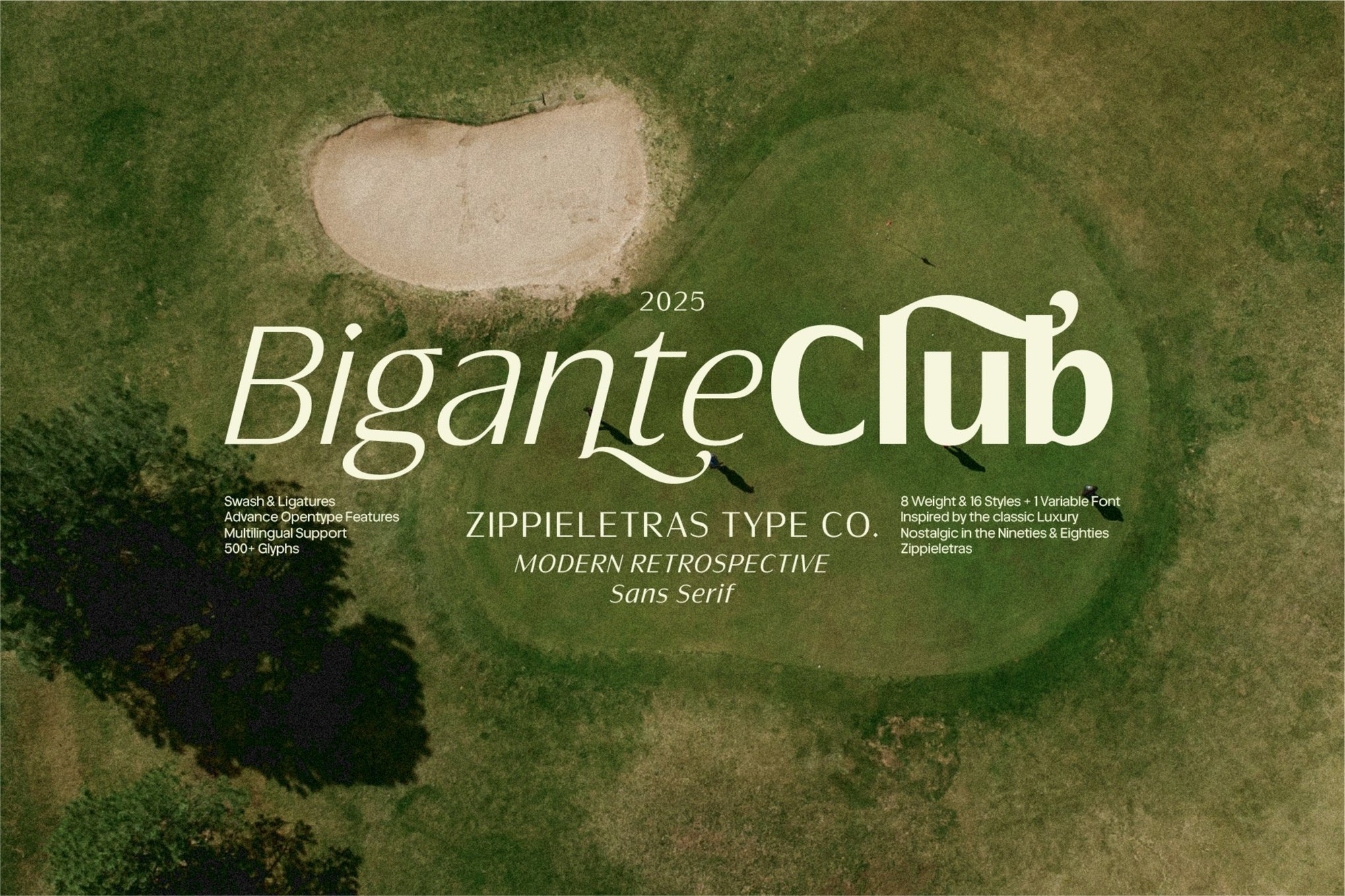
Bigante Font Family
Bigante Font Family is a versatile font designed to adapt beautifully across different design styles, offering dependable readability and balance.Zippieletras proudly Introduce Bigante! A luxury modern sans serif designed for elegant branding, editorial systems, and refined display typography. Inspired by the sophisticated nostalgia of 1980s–1990s luxury design, Bigante blends smooth curves with subtle contrast to create a timeless yet contemporary visual voice.
Its letterforms feel fluid, confident, and elegant, making Bigante highly versatile for logos, headlines, posters, websites, print products, and body text. Carefully crafted proportions allow it to function as a complete type system, not just a display font. Swash alternates add expressive elegance, making it especially suitable for premium branding, fashion campaigns, and editorial layouts that require both personality and restraint.
Bigante shines when paired with Helvena Grotesk, creating a balanced typographic contrast between expressive elegance and functional modernity ideal for brand identity systems that need hierarchy and flexibility.